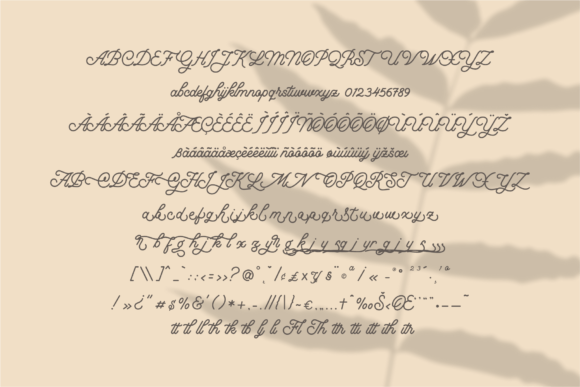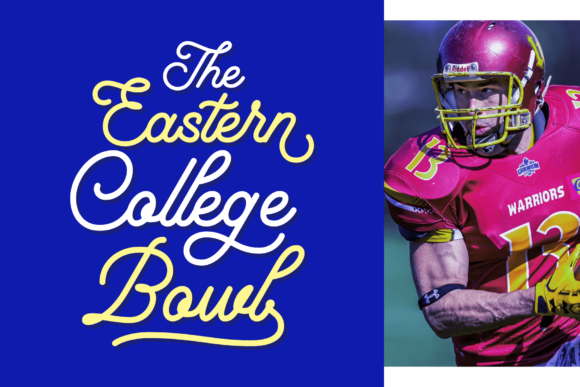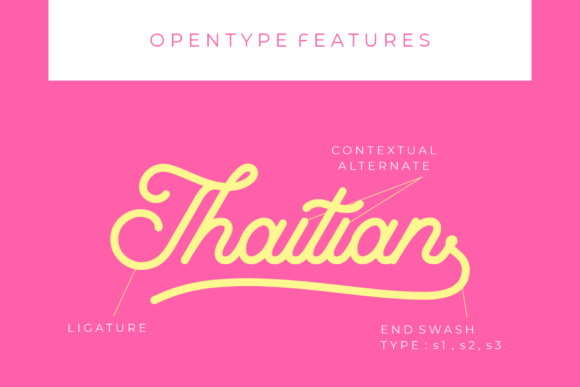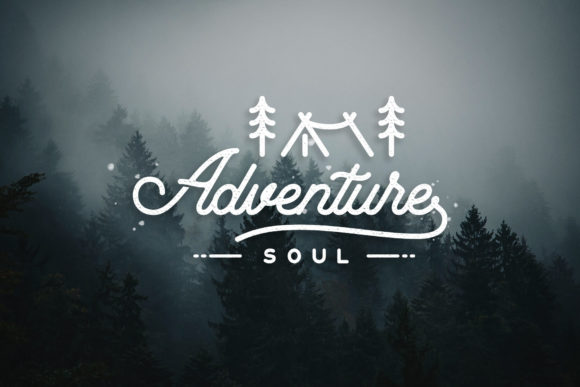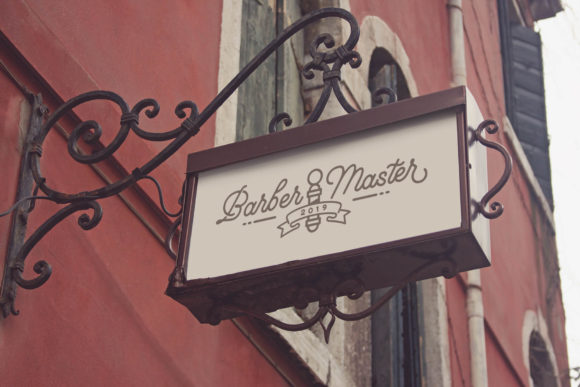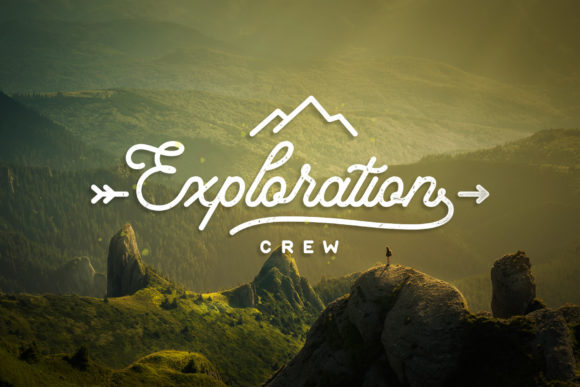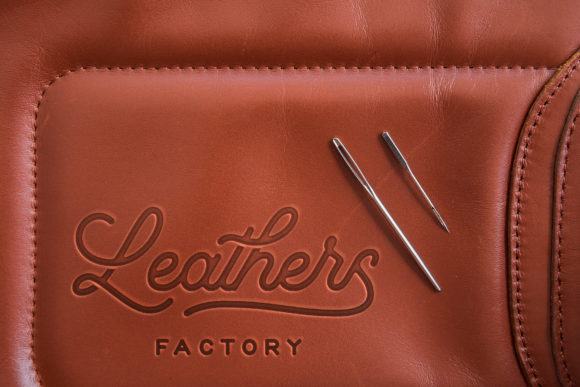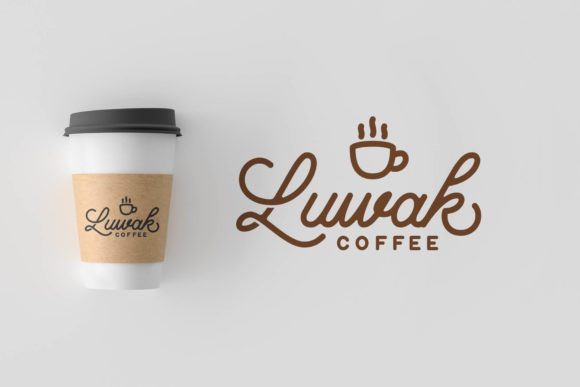
HomeScript FontsFlorista Font Script Fonts Florista Font FacebookXPinterestWhatsApp Florista Font Poster 2 Florista Font Poster 3 Florista Font Poster 4 Florista Font Poster 5 Florista Font Poster 6 Florista Font Poster 7 Florista Font Poster 8 Florista Font Poster 9 About Florista Font Florista is inspired by all things botanical: It’s a simple, yet sweet handwritten font with a natural feel! DOWNLOAD ON CREATIVE FABRICAThis font is sold and delivered by Creative Fabrica. Font Canyon may earn a commission if you buy through this link. People also explored Happy Ocean Font Moiresse Font Rainbow Font Qlika Font Chocolate Cane Duo Font Donita Script Font Marlton Font The Carbs Font Welcome Script Font 335 0 TagsFlorista Font Previous articleCloudia FontNext articleBetter Font LEAVE A REPLY Cancel reply Comment: Please enter your comment! Name:* Please enter your name here Email:* You have entered an incorrect email address! Please enter your email address here Website: Save my name, email, and website in this browser for the next time I comment. Personal Use Free Mariyam Personal Use Free Read more about this font Tomatoes Personal Use Free Read more about this font Baby Mollusca Personal Use Free Read more about this font Oaklevin Personal Use Free Read more about this font BLOG Modern Sans-Serif Fonts That Brands Love in 2025 In 2025, modern sans-serif fonts remain a top choice for brands looking to project clarity, professionalism, and... Fonts That Capture the Spirit of New York City Transform Your Website: Elevate Your Typography with 7 Best Web Font Generators Top 7 Google Fonts Alternatives for Faster and Privacy-Friendly Web Design (2025)